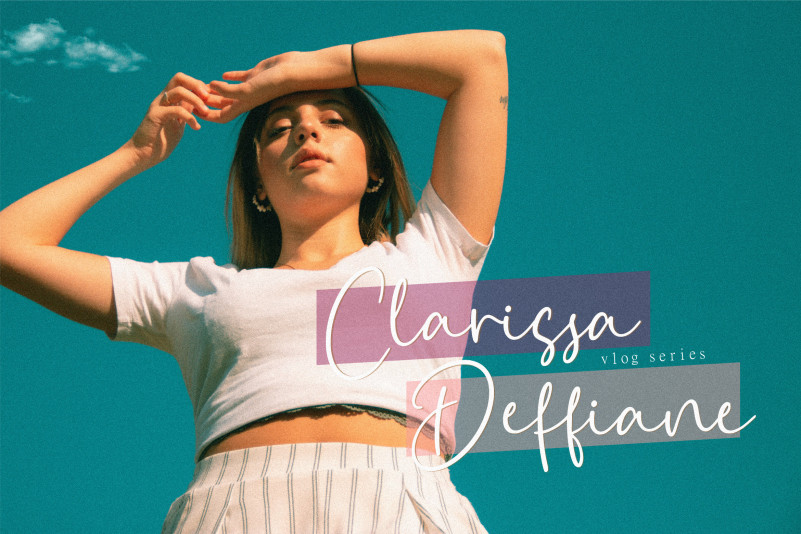
Brittannia Delimonthe Font
Brittannia Delimonthe Script Font is a Beautiful Handwritten Font. Brittannia Delimonthe is perfect for product packaging, branding project, megazine, social media, wedding, or just used to express words above the background.